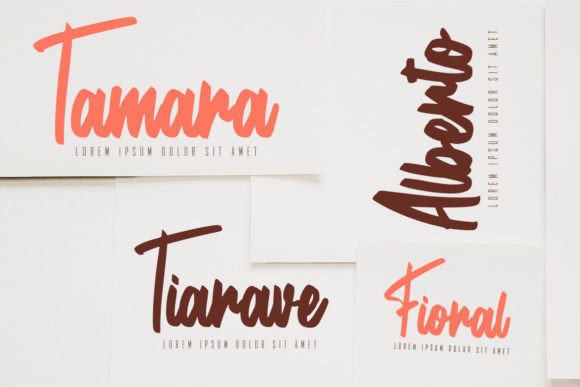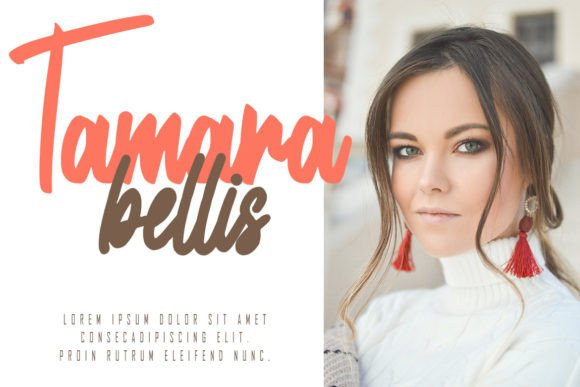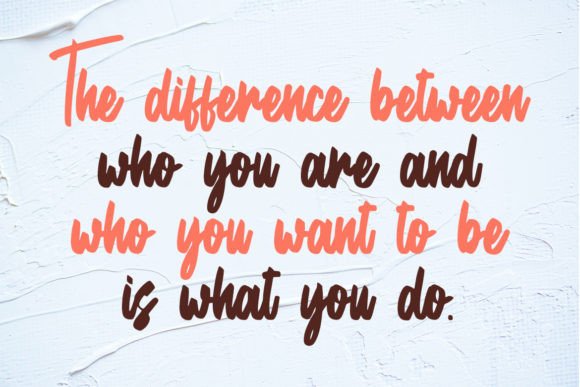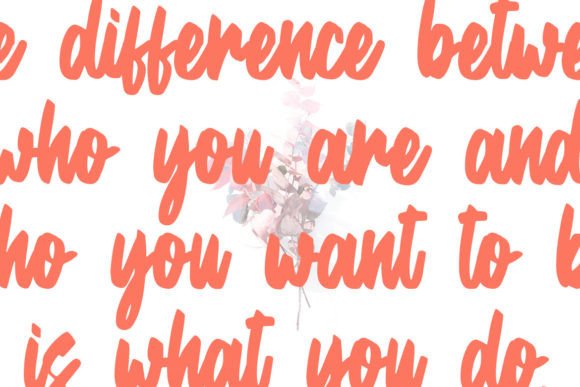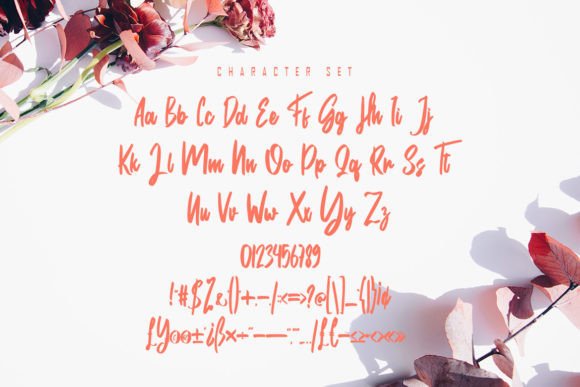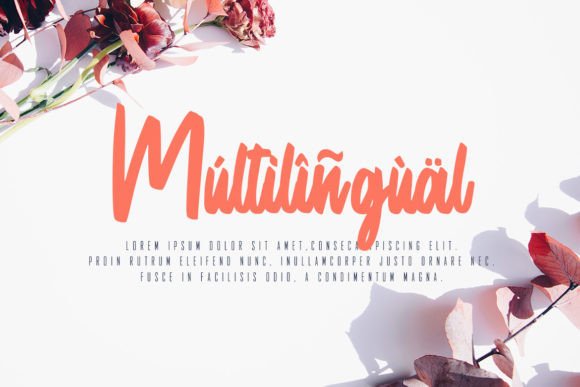
Introducing Frantas Font: A Natural, Handmade Textured Brush Text Font
Are you looking for a font that adds a touch of elegance and uniqueness to your designs? Look no further than Frantas Font, a natural handmade textured brush text font with an irregular baseline. This beautiful font is perfect for designers and crafters who want to add a personal touch to their work.
What is Frantas Font?
Frantas Font is a carefully crafted font that mimics the look of handwritten text. Its natural, textured appearance gives it a unique and organic feel that is sure to capture the attention of your audience. The irregular baseline adds a touch of whimsy and playfulness, making it perfect for designs that require a bit of personality.
Features of Frantas Font
- Natural Handmade Texture: Frantas Font has a beautiful, natural texture that gives it a handmade feel.
- Irregular Baseline: The irregular baseline adds a touch of uniqueness and playfulness to the font.
- Elegant Appearance: Frantas Font has an elegant appearance that is perfect for designs that require a touch of sophistication.
- Highly Versatile: This font is perfect for a wide range of design projects, from magazines and quotes to titles, brand names, book covers, and posters.
Uses of Frantas Font
Frantas Font is a highly versatile font that can be used for a wide range of design projects. Here are some ideas to get you started:
- Magazines and Quotes: Add a touch of elegance to your magazine articles and quotes with Frantas Font.
- Titles and Headings: Use Frantas Font to create eye-catching titles and headings for your designs.
- Brand Names: Create a unique and memorable brand identity with Frantas Font.
- Book Covers: Add a touch of sophistication to your book covers with Frantas Font.
- Posters: Create eye-catching posters with Frantas Font that are sure to grab attention.
Why Choose Frantas Font?
There are many fonts available that can add a touch of elegance to your designs, but Frantas Font stands out from the rest. Here are some reasons why:
- Unique Appearance: Frantas Font has a unique and natural appearance that sets it apart from other fonts.
- High-Quality Design: Frantas Font is carefully crafted to ensure that it looks great in any design.
Tips for Using Frantas Font
Here are some tips for getting the most out of Frantas Font:
- Use it for Headings and Titles: Frantas Font is perfect for headings and titles, where its elegant appearance can really shine.
- Experiment with Colors: Try out different colors to see how they affect the appearance of Frantas Font.
- Pair it with Other Fonts: Frantas Font can be paired with other fonts to create a unique and eye-catching design.
- Use it for Branding: Frantas Font can be used to create a unique and memorable brand identity.
Frantas Font is a beautiful, natural handmade textured brush text font with an irregular baseline. Its elegant appearance and unique texture make it perfect for a wide range of design projects, from magazines and quotes to titles, brand names, book covers, and posters. With its high-quality design, ease of use, and affordability, Frantas Font is a great choice for designers and crafters who want to add a touch of elegance to their work.